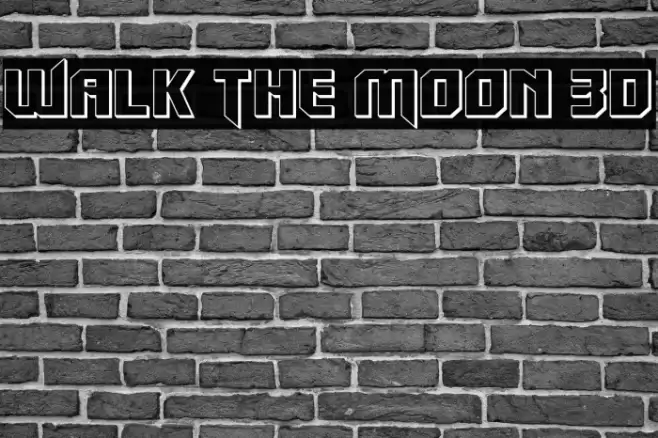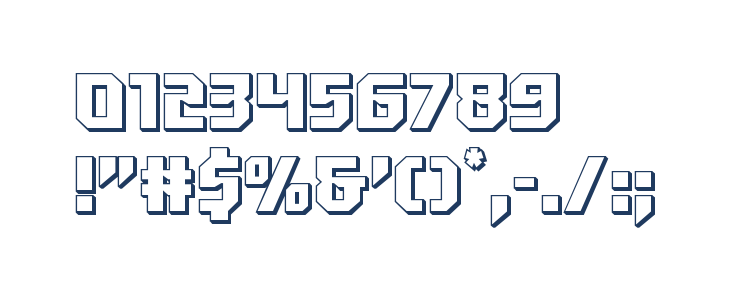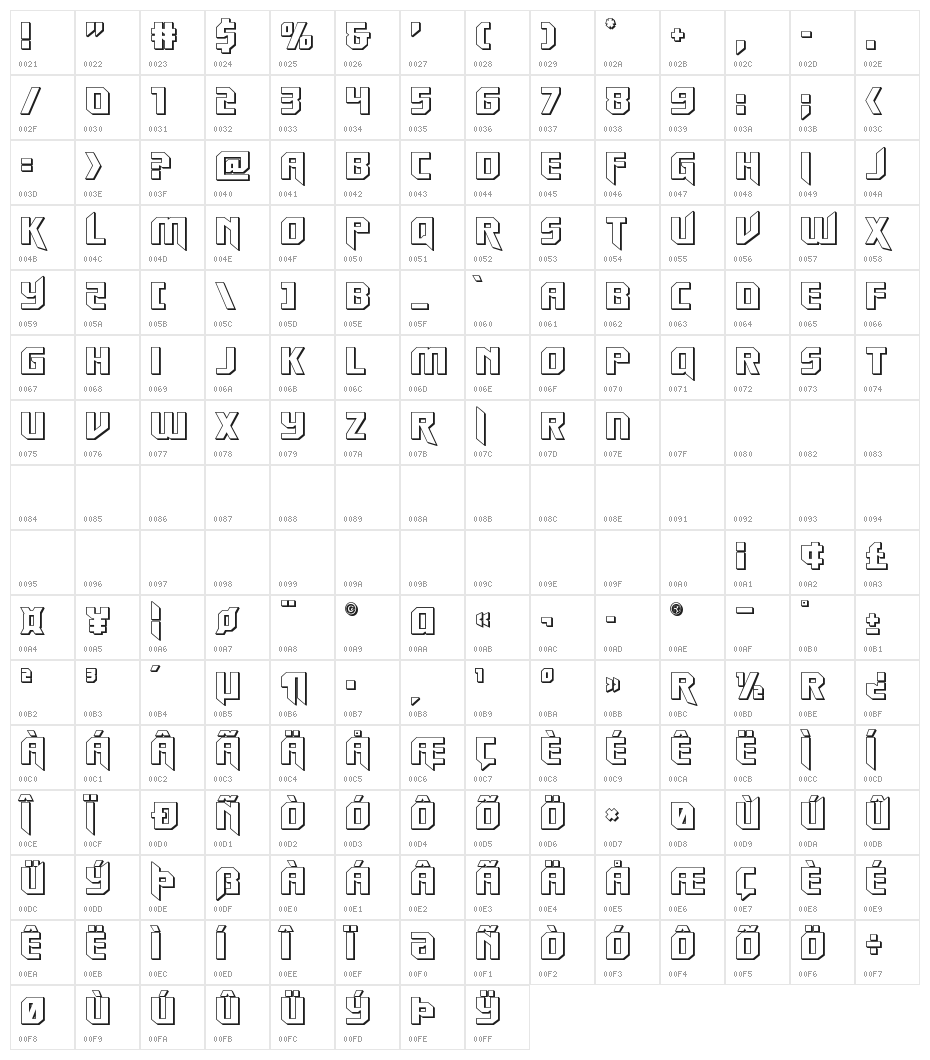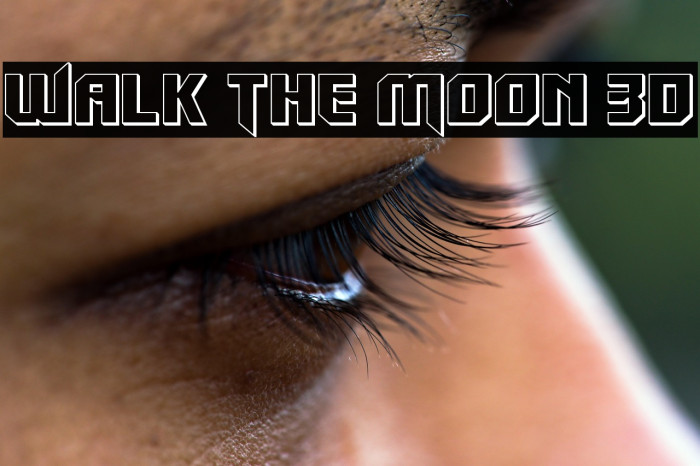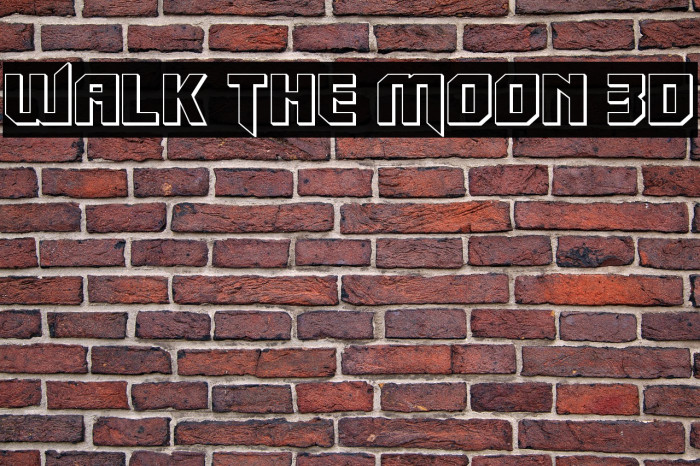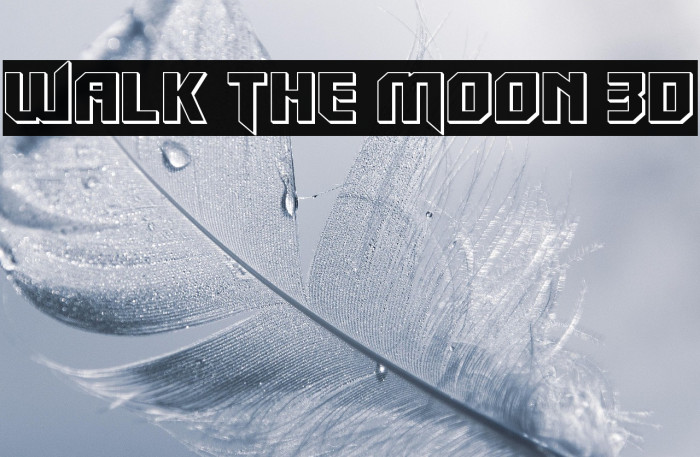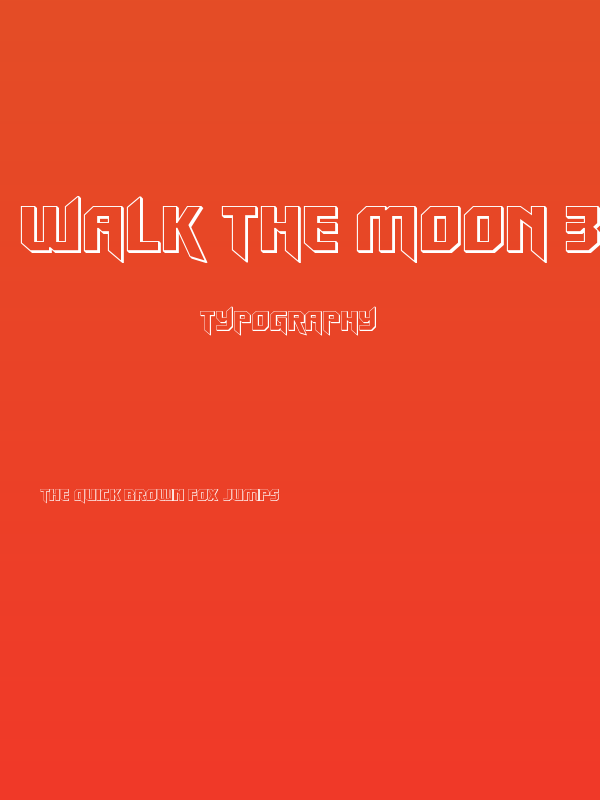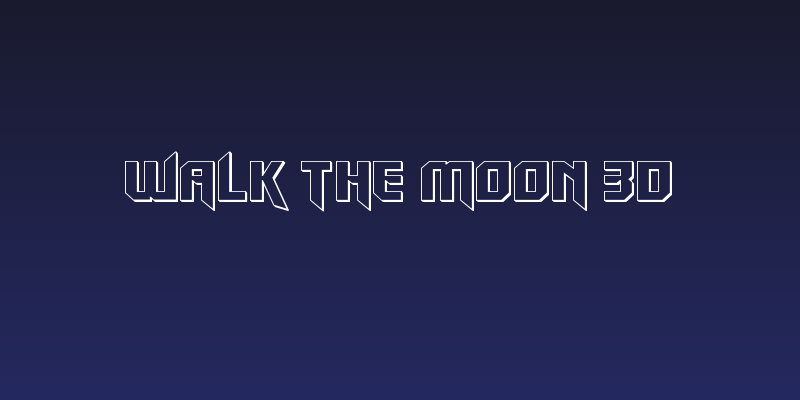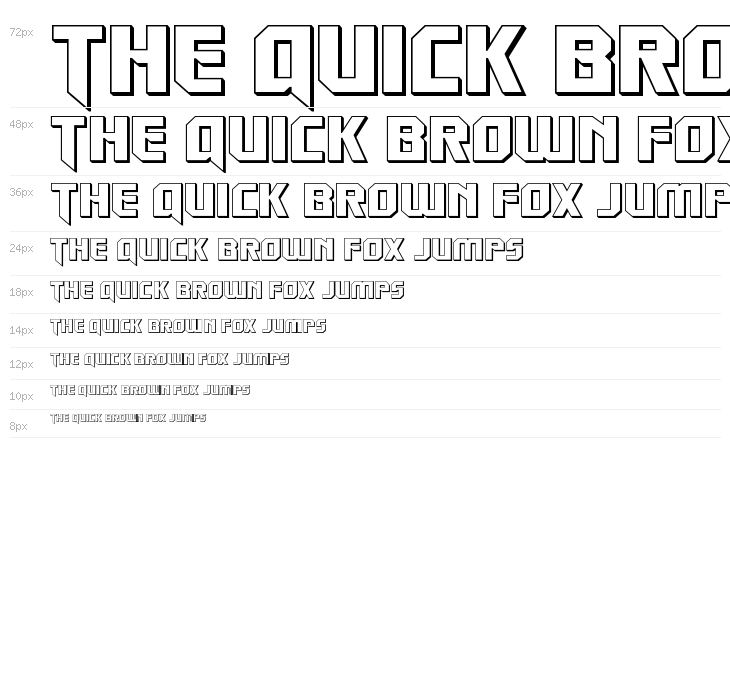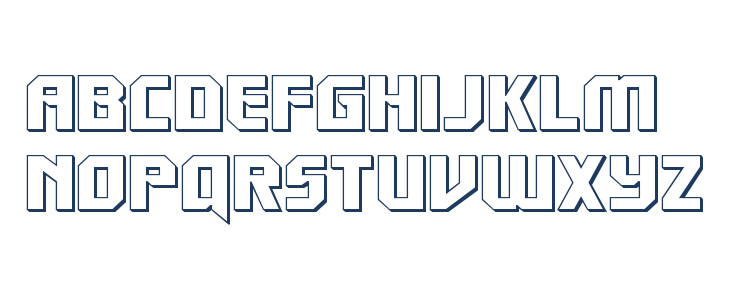
Walk The Moon 3D Font
Walk The Moon 3D Description
This font features a bold, three-dimensional design that gives each character a striking, futuristic appearance. The letters are angular and geometric, with sharp edges and a shadow effect that enhances the 3D illusion. The uppercase and lowercase letters maintain a consistent style, providing a cohesive look across the alphabet. Numbers and special characters are designed with the same attention to detail, ensuring uniformity. The font's unique style makes it ideal for projects that require a modern and eye-catching aesthetic.
A bold, 3D geometric font with a futuristic style from Regular fonts.
- Proposed Projects: Ideal for video game titles, sci-fi movie posters, tech company logos, and modern advertising campaigns.